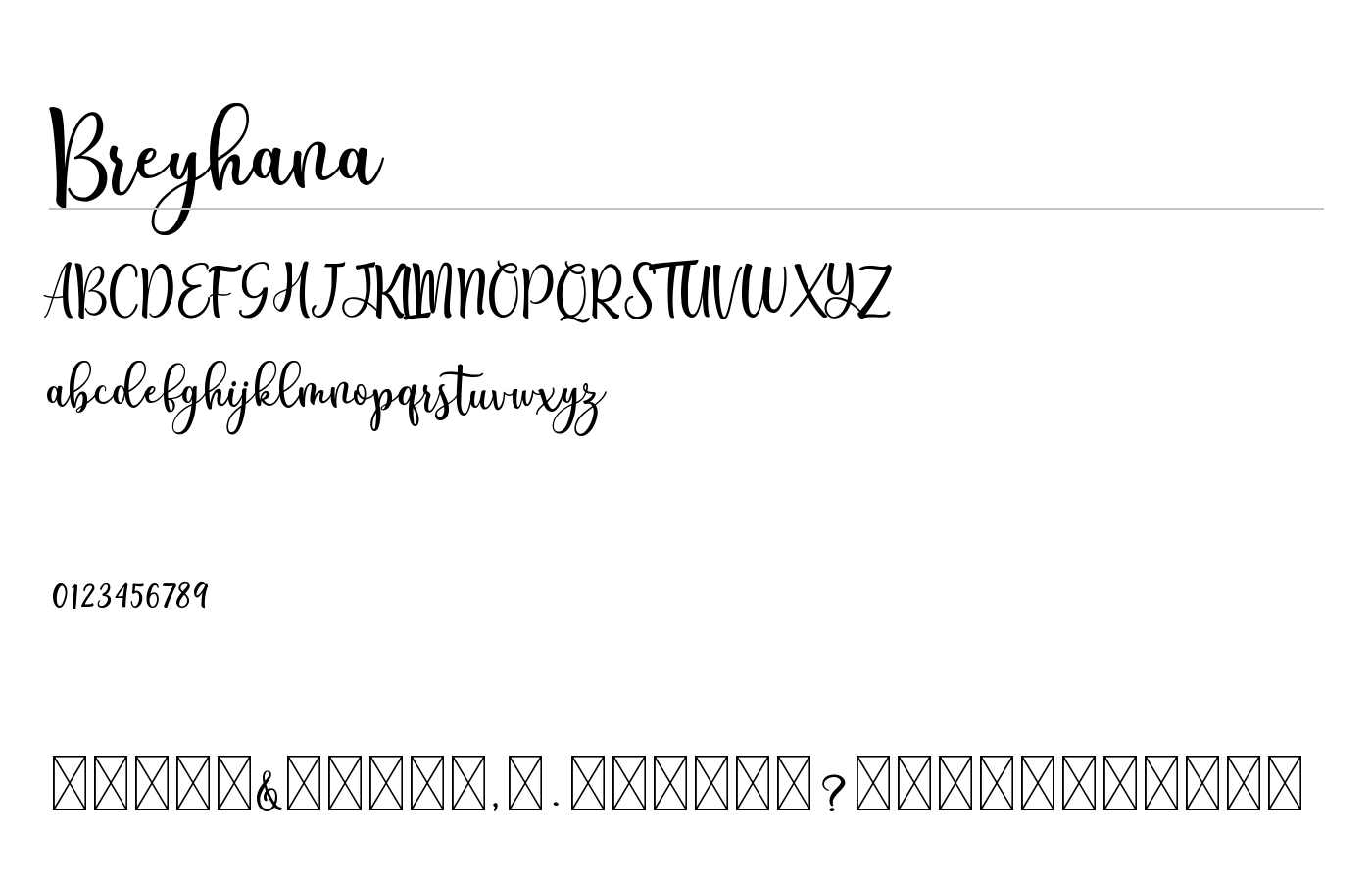
Breyhana is a delicate and elegant handwritten script font with a high x-height that gives it a friendly, flowing character. Its thin, slightly varied strokes and playful letterforms make it perfect for feminine branding, invitations, and stylish logos where a personal, graceful touch is desired. This font shines in creative, decorative uses, adding charm and sophistication to designs without overwhelming them.
Breyhana Font
About Breyhana Font
| Font family | Breyhana Font |
| Designer | M Arif Dwi Prasetyo & Eko Nurcahyo |